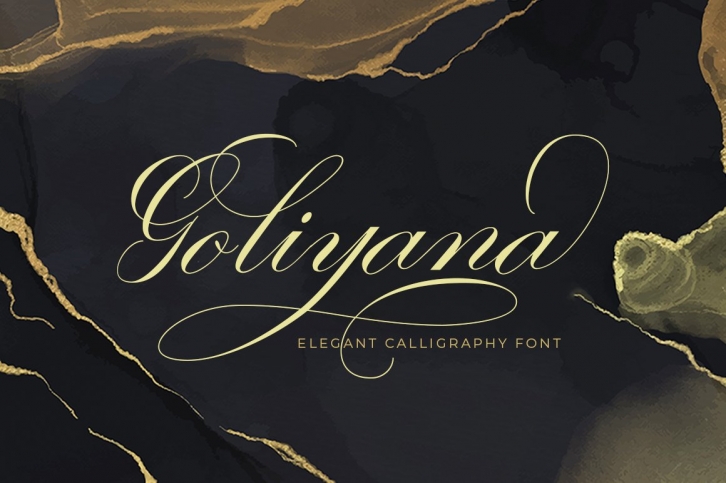
Goliyana is a gorgeous font that was realeased on May 15, 2020. The font can be used in many style contexts and design environments. Perfect for invitations, magazines, websites, logos, and more! It was designed by Aqeela Studio and the file size is 20.14 MB. Thanks for checking out this font!